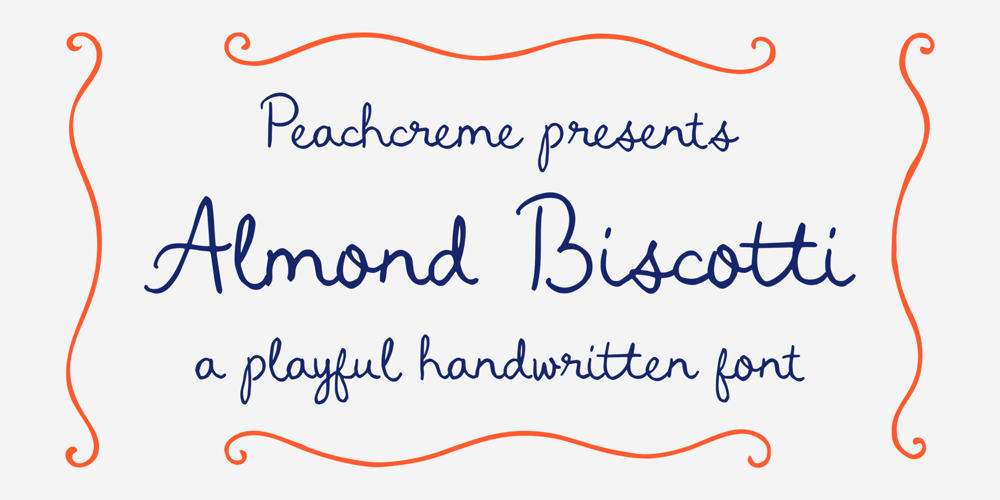
Almond Biscotti
Almond Biscotti font
Almond Biscotti Font Family was designed by Gulya Yeap and published by PeachCreme. Almond Biscotti contains 1 styles and family package options. Almond Biscotti is a charming hand-drawn font featuring irregular letter shapes that add a personal and warm touch to any design. Its playful style infuses character and makes it perfect for invitations, greeting cards, posters, and more.Almond Biscotti captures the essence of hand-drawn lettering with its delightful imperfections and irregularities. Each letter has its own unique shape, mimicking the natural flow of handwriting. This gives your text an authentic feel, making your audience feel more connected to your message.